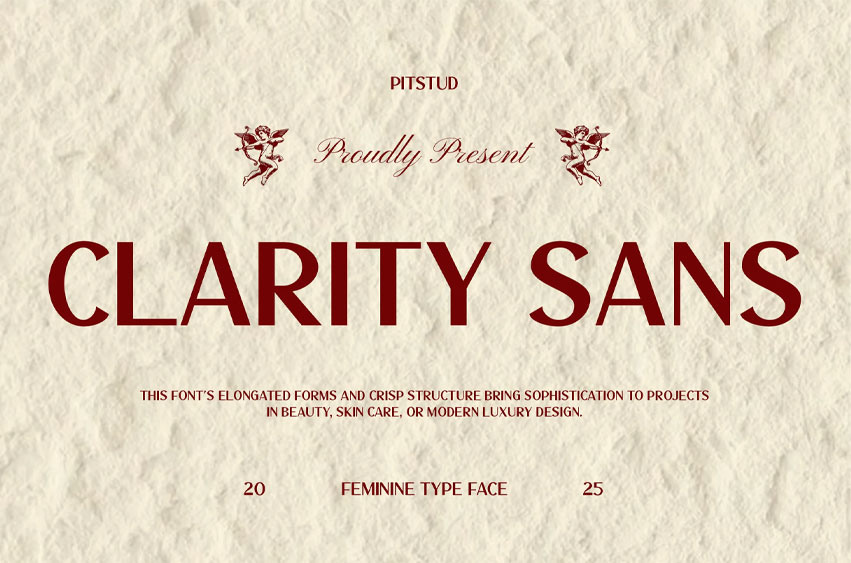
Clarity Sans Font Sophisticated Sans Serif Font is an elegant and refined typeface designed to bring luxury, femininity, and modern style to your creative projects. With its elongated letterforms and crisp, balanced structure, Clarity Sans delivers a polished aesthetic perfect for beauty, fashion, and lifestyle designs.
Whether you’re creating a luxury brand identity, skincare packaging, fashion magazine cover, or wedding stationery, Clarity Sans offers the perfect balance of sophistication and readability. Its sleek forms and versatile elegance make it ideal for logos, editorials, digital branding, advertising, and promotional materials.
- Elegant & Modern Design: Elongated sans serif style with refined proportions.
- Complete Character Set: Uppercase, lowercase, numbers, punctuation, symbols.
- OpenType Features: Alternates, ligatures, stylistic sets.
- Multilingual Support: Supports multiple languages, including English, Spanish, French, German, and Portuguese.
Clarity Sans combines sophistication and versatility, making it the go-to typeface for designers looking to elevate their visual projects with a touch of luxury. Whether used in branding, editorial, packaging, or digital design, it adapts effortlessly to modern creative needs.
- Luxury Branding: Create timeless, elegant brand identities.
- Fashion & Beauty: Ideal for magazines, skincare, and cosmetic packaging.
- Wedding & Lifestyle: Perfect for invitations, stationery, and blogs.
- Editorial Design: Elevate magazine layouts and headlines.
- Digital Marketing: Add sophistication to campaigns and social media visuals.